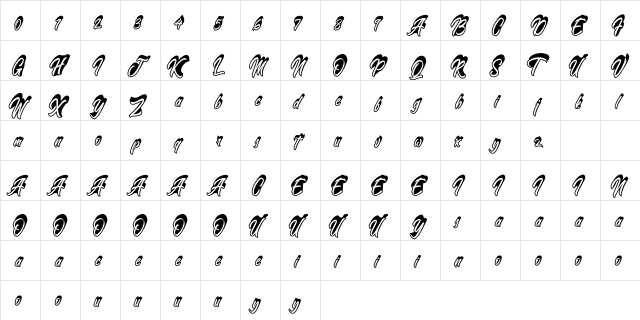
The Black Cassanova Regular
Design Context for The Black Cassanova Typeface
The Black Cassanova is a composed and adaptable typeface that performs quietly and consistently across a wide range of design contexts.